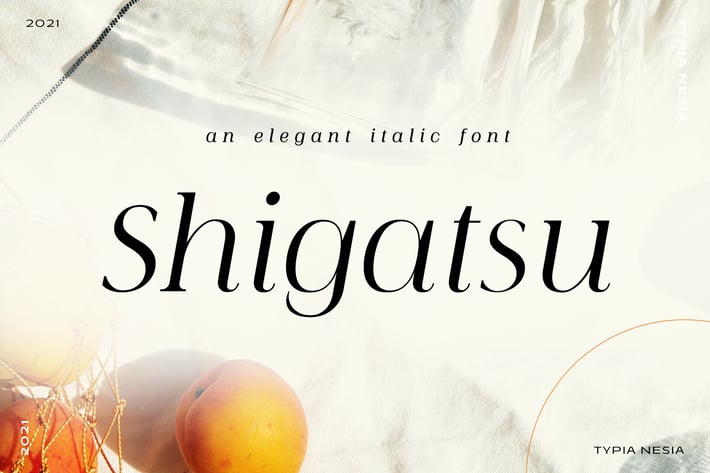
Shigatsu - Elegant Beauty Italic Serif Font
Shigatsu Modern Italic - Elegant Beauty Classy Serif Italic Font - Classic Luxury Timeless Italic Serif Font
Shigatsu Elegant Serif font is perfect for your up coming projects. Such as luxury logo and branding, classy editorial design, woman magazine, cosmetic brand, fashion promotional, art gallery branding, museum, historical of architectural, boutique branding, stationery design, blog design, modern advertising design, card invitation, art quote, home decor, book/cover title, special events and any more.